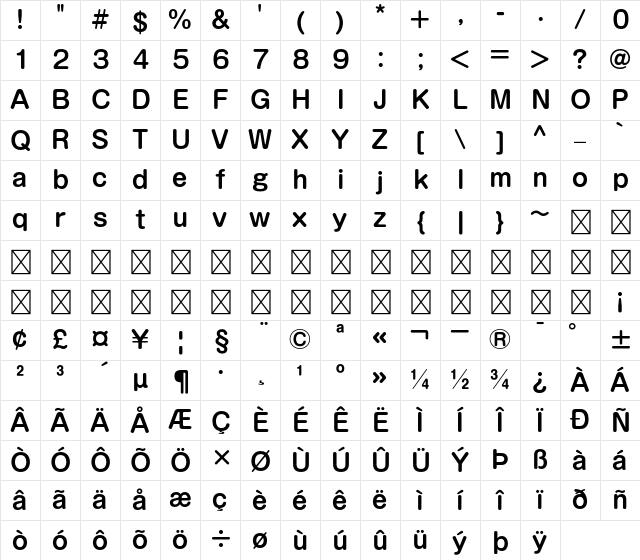
G-OTF Jo Shin Maru Go ProN DB
Style: DB
Designer: Morisawa and Company Limited.
Design Context for G-OTF Jo Shin Maru Go ProN
G-OTF Jo Shin Maru Go ProN is a composed and adaptable typeface that performs quietly and consistently across a wide range of design contexts.